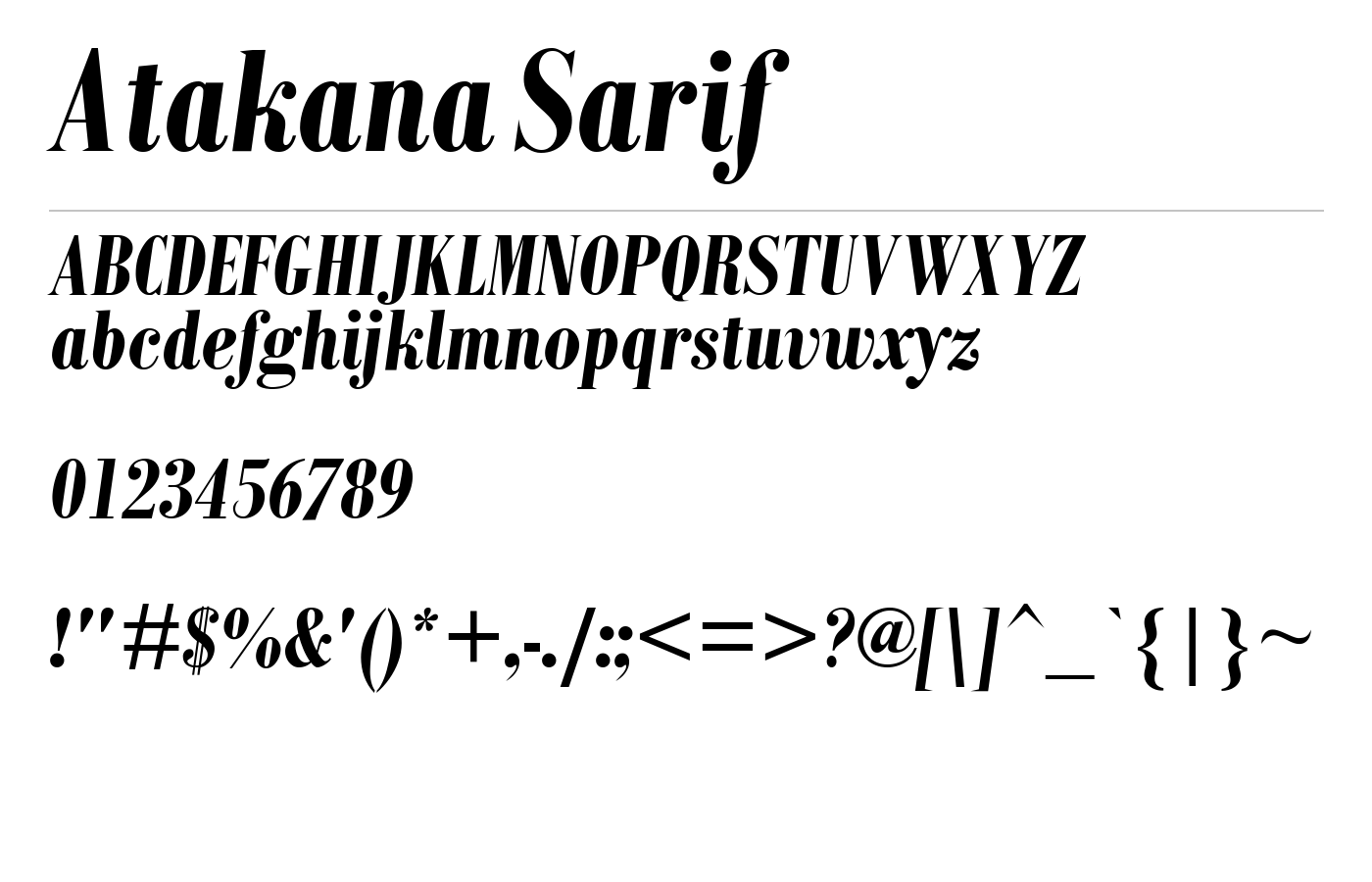
Atakana Sarif is an elegant serif font showcasing high contrast between thick and thin strokes with a stylish, slightly condensed structure and pronounced bracketed serifs. Its distinctive italic style, with single-story a and curved, decorative letterforms, adds a refined and sophisticated touch, making it ideal for luxury branding, editorial headlines, and fashion-focused designs. This font’s graceful personality lends itself well to projects that require a blend of classic charm and modern flair.
Atakana Sarif Font
About Atakana Sarif Font
| Font family | Atakana Sarif Font |
| Designer | Ramaziana |